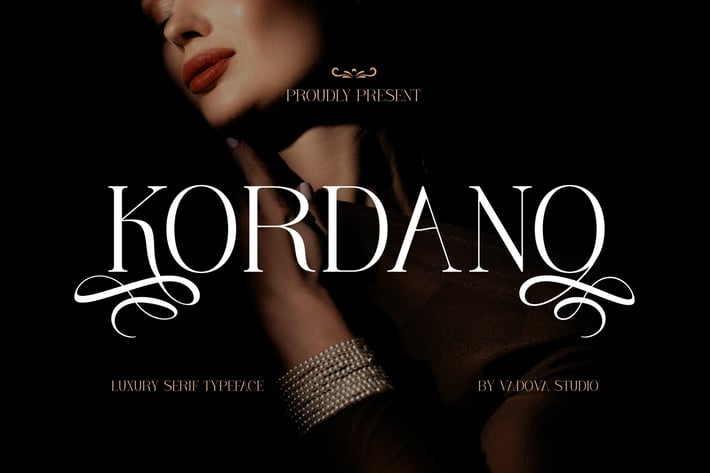
Kordano Luxury Serif Font
Kordano is an elegant and refined luxury typeface designed to elevate high-end branding and sophisticated visual communication. With its graceful curves, balanced proportions, and tasteful ligatures, this font is perfect for luxury fashion labels, upscale packaging, beauty products, and real estate branding. Kordano embodies timeless style and contemporary elegance, making it an ideal choice for logos, editorial layouts, and premium marketing materials that demand attention and finesse.